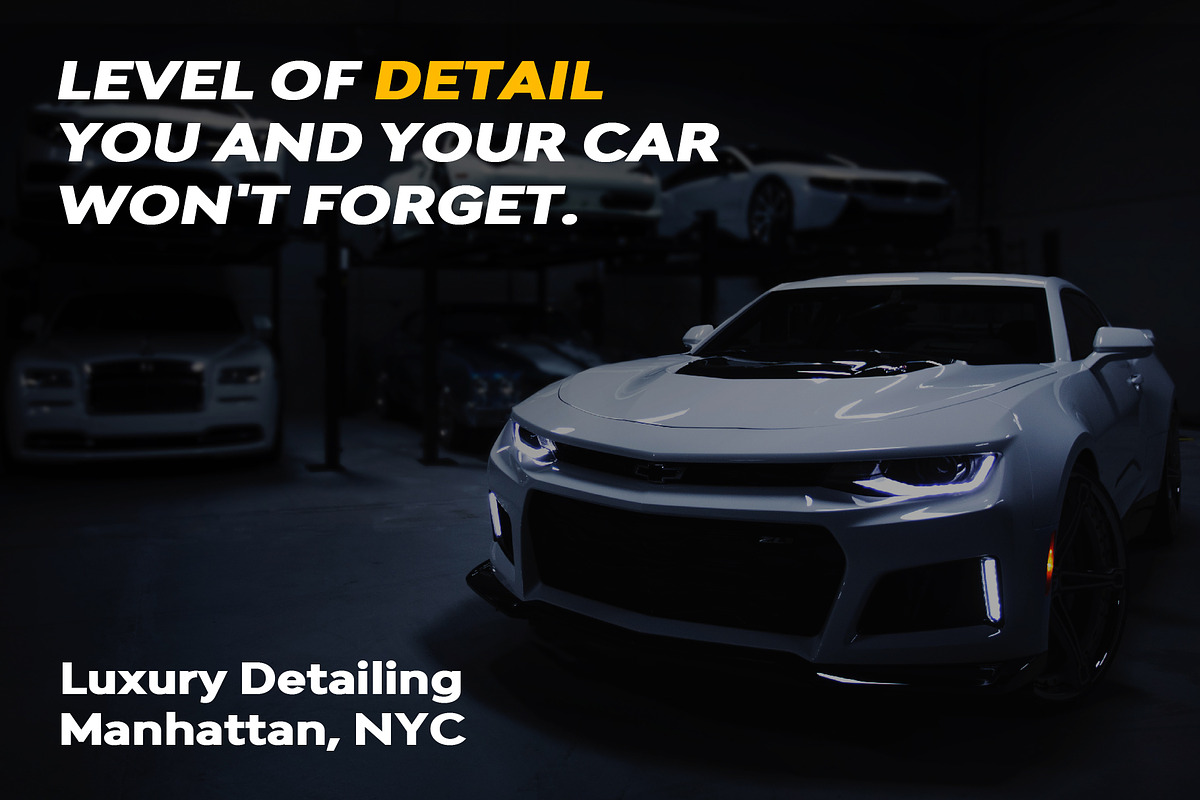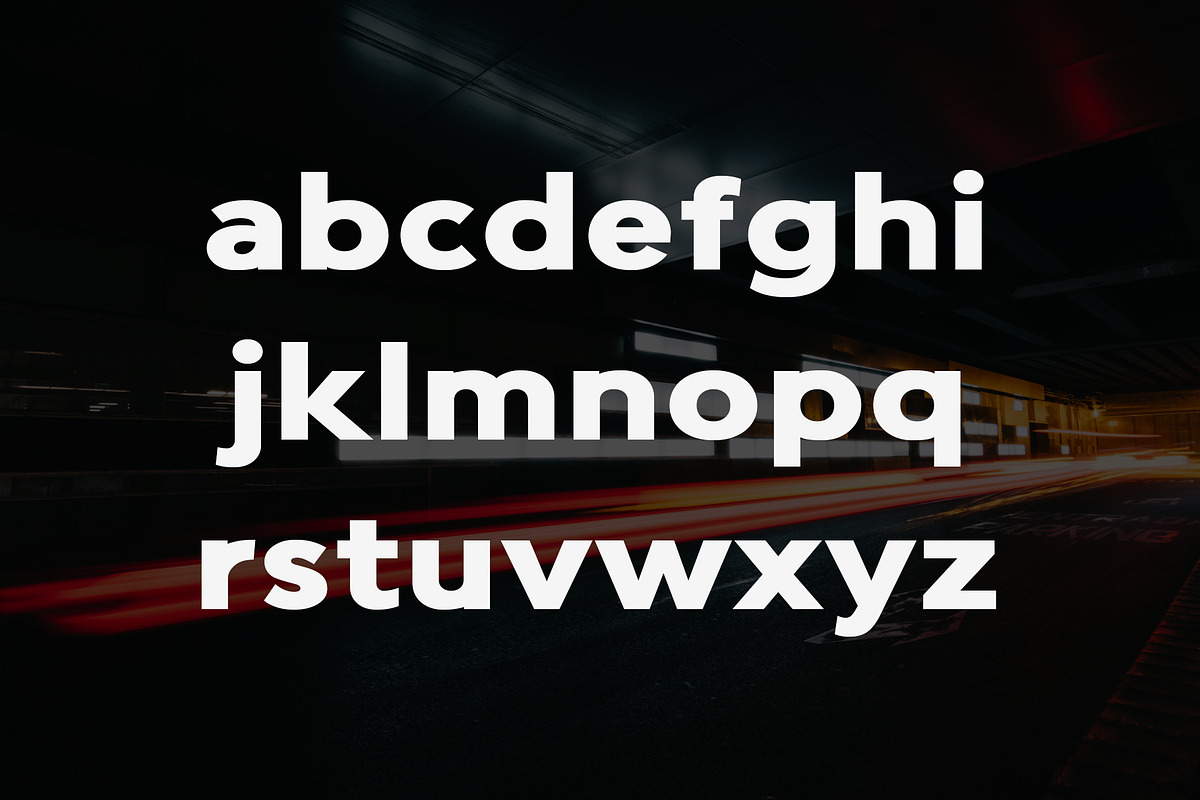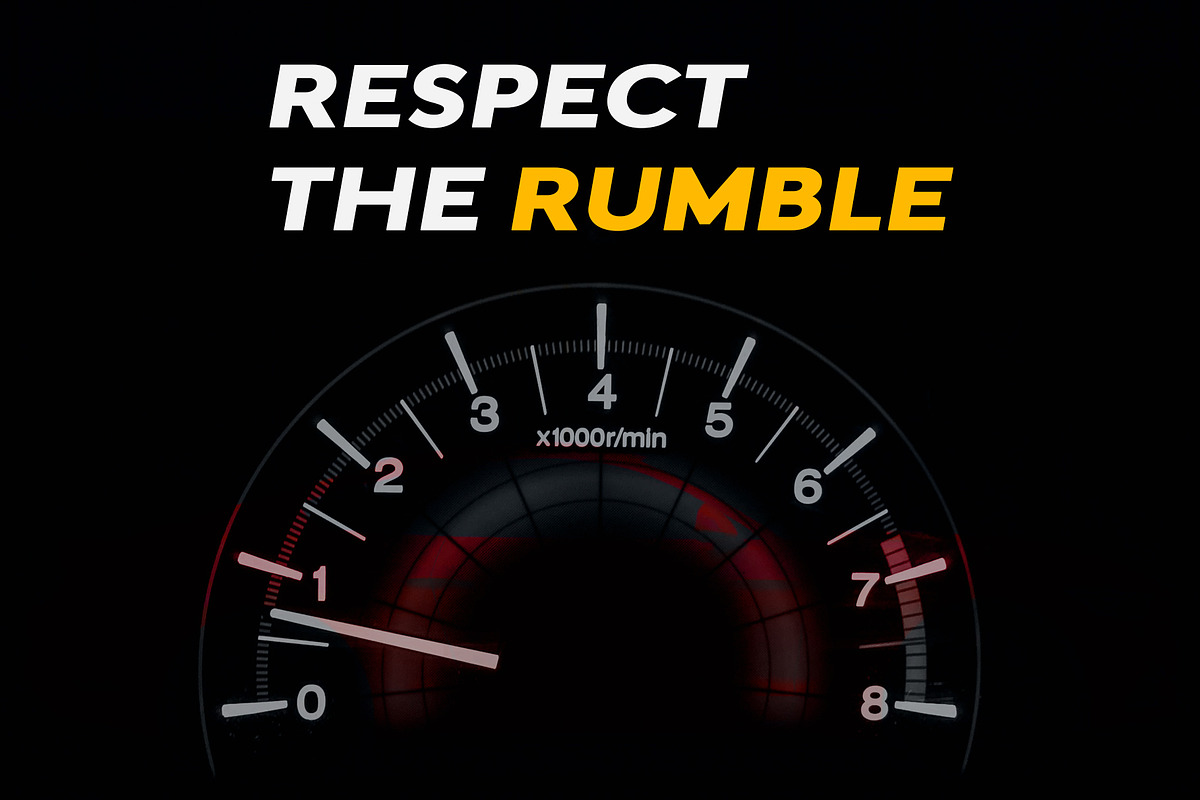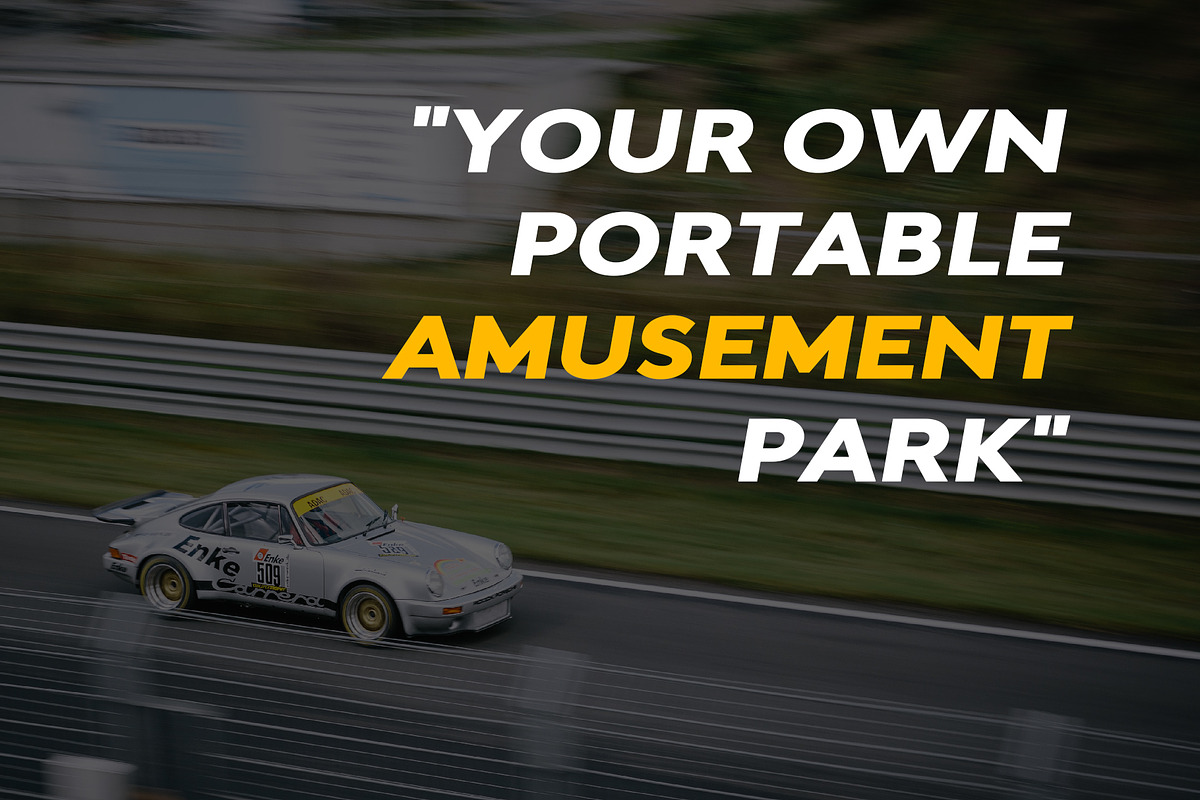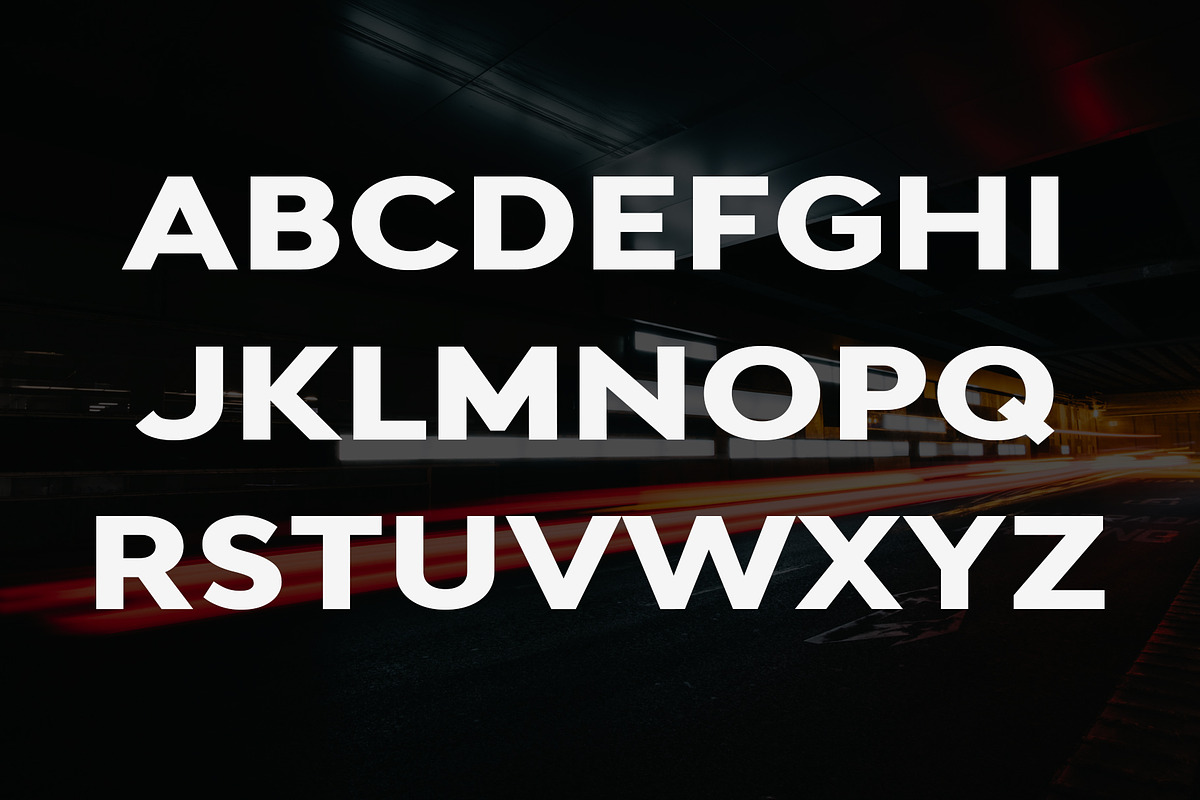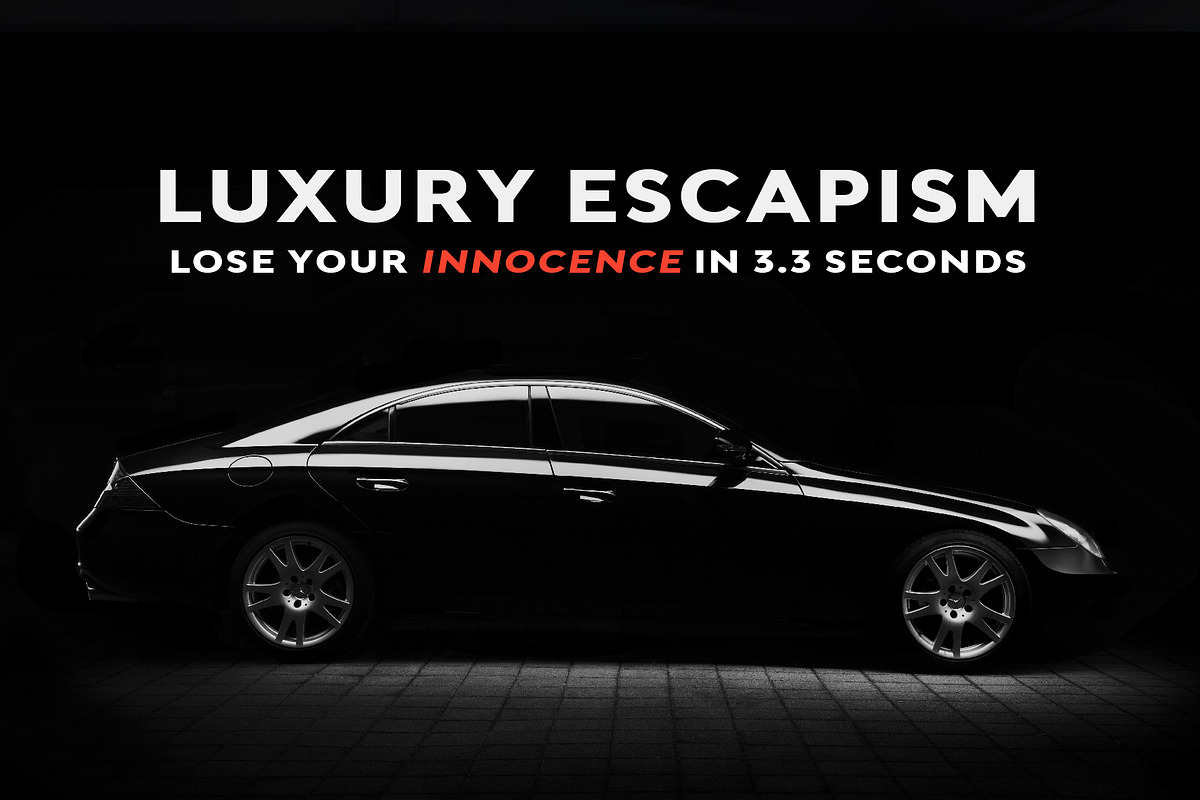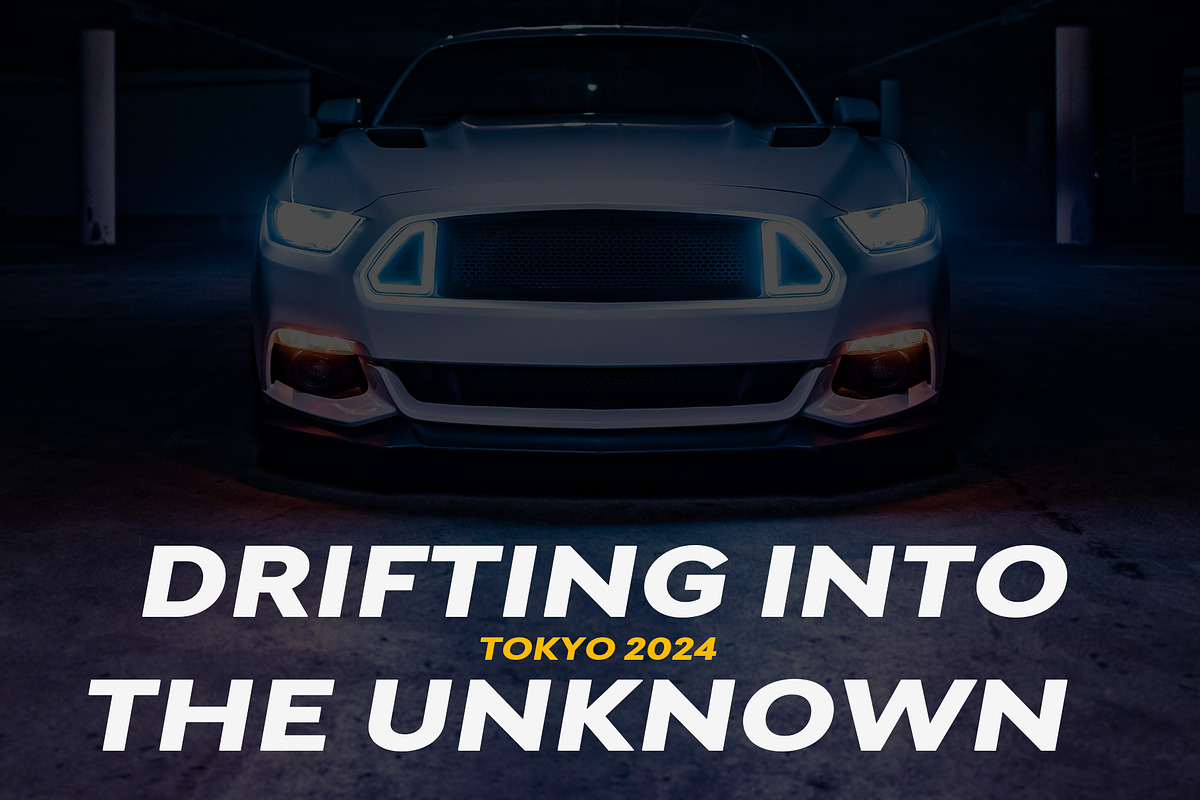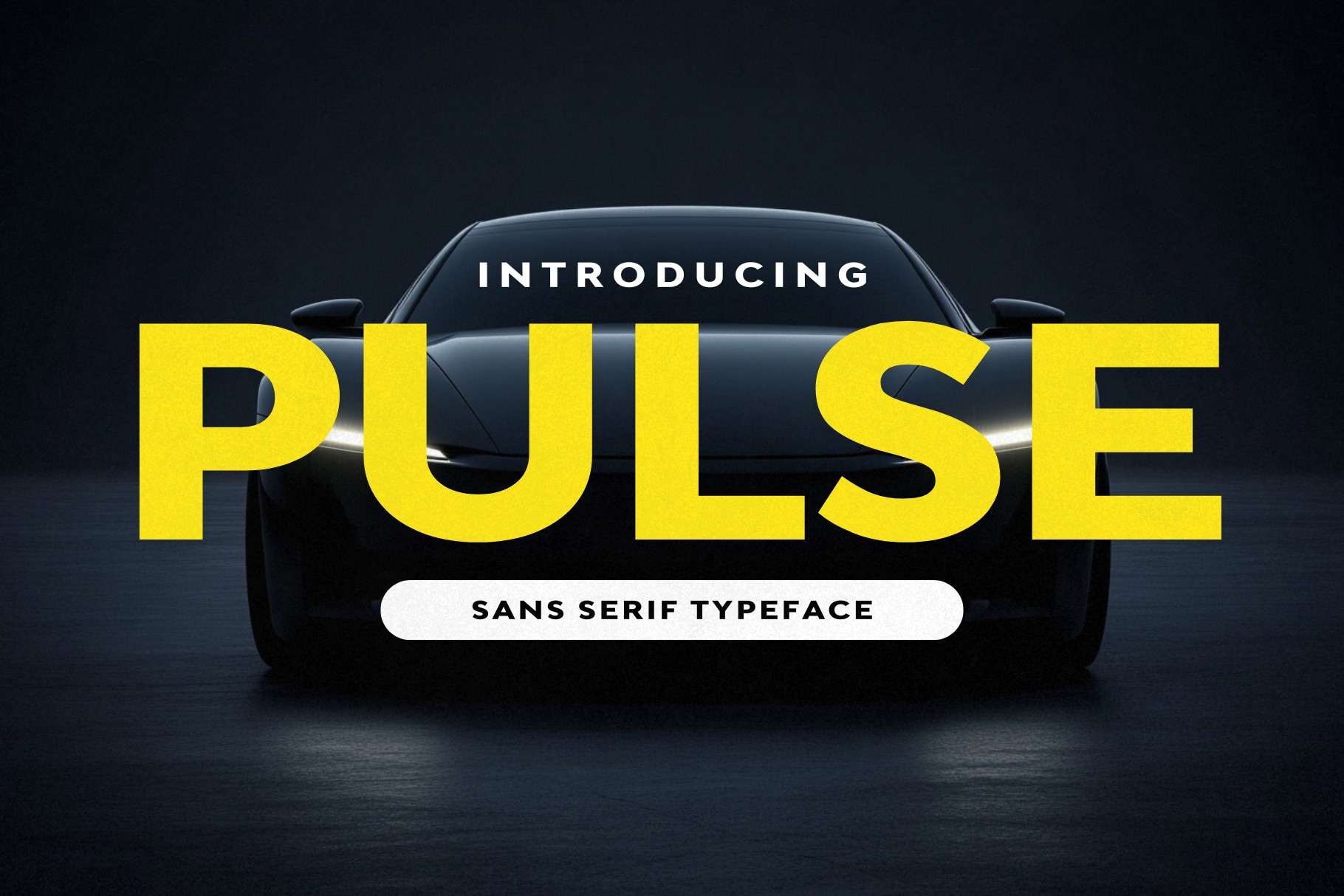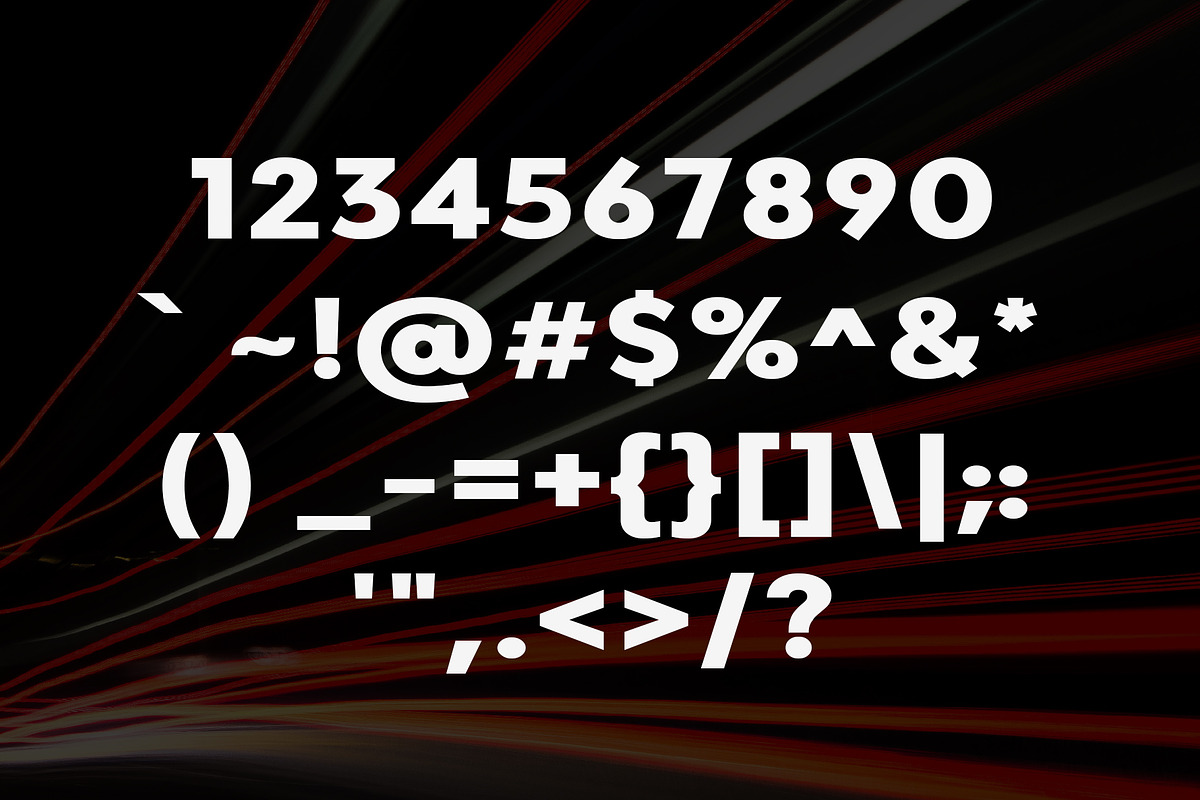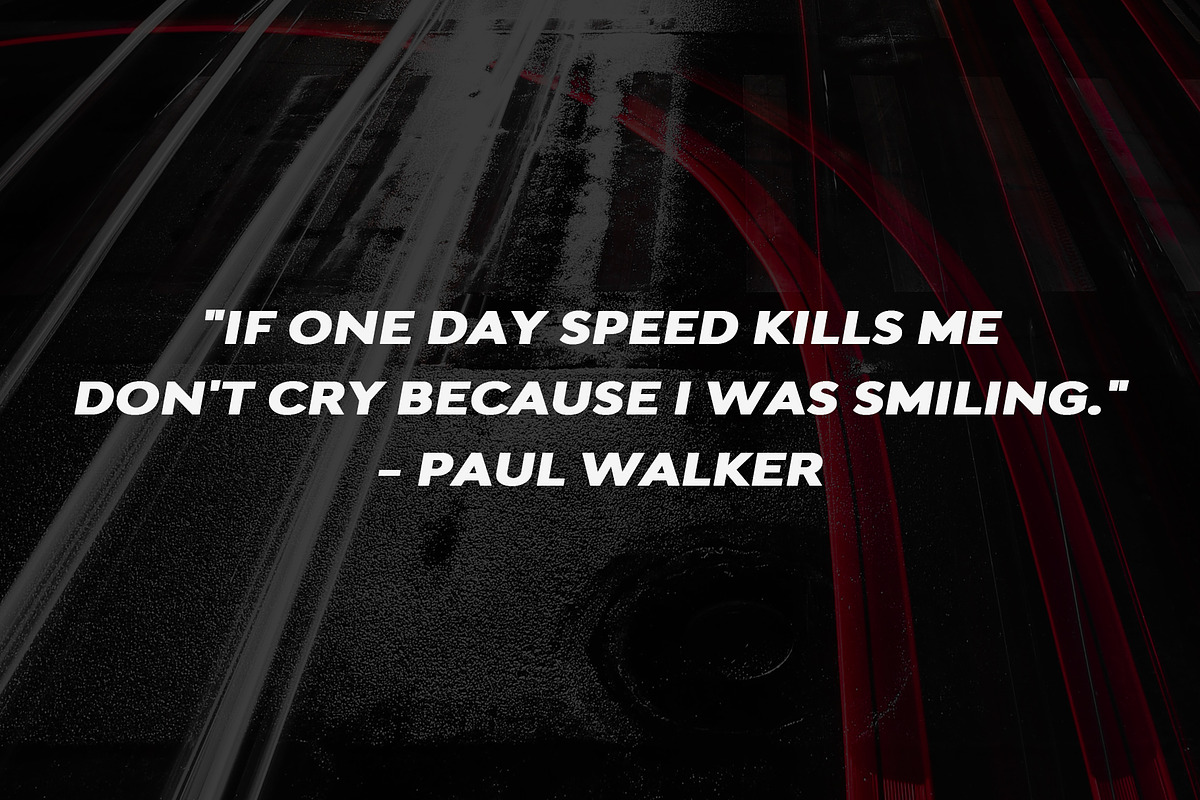
Pulse - Bold Racing Typeface
Pulse is a racing font that displays boldness, showmanship, and speed. Pulse typeface is versatile and perfect for any design including logos, flyers, posters, headlines, sports, video editing and much more. Possibilities are endless.
- Uppercase & lowercase letters, numbers, punctuation